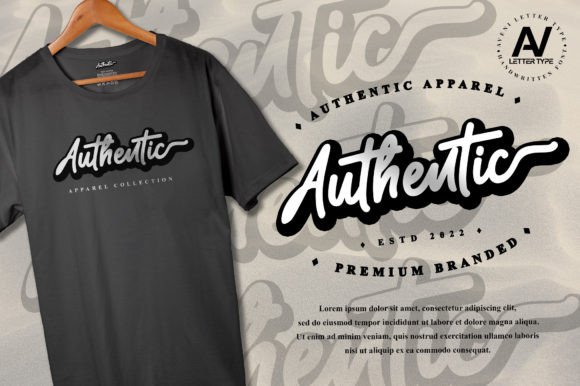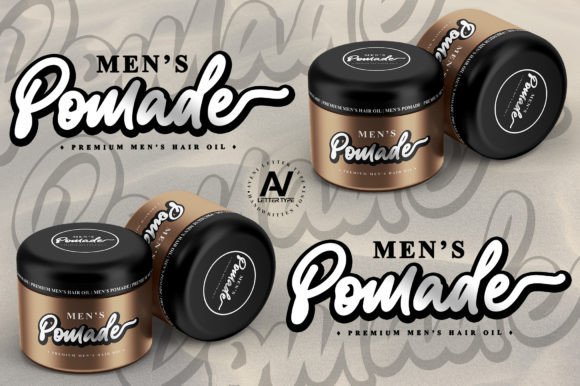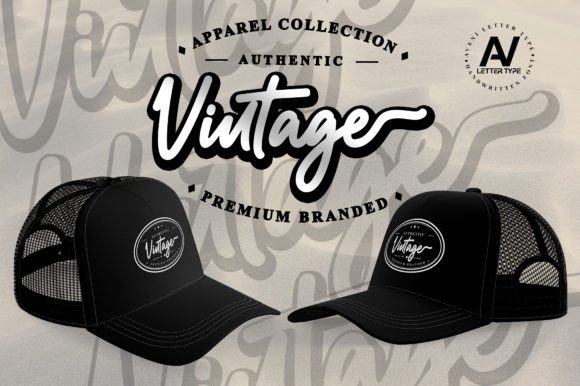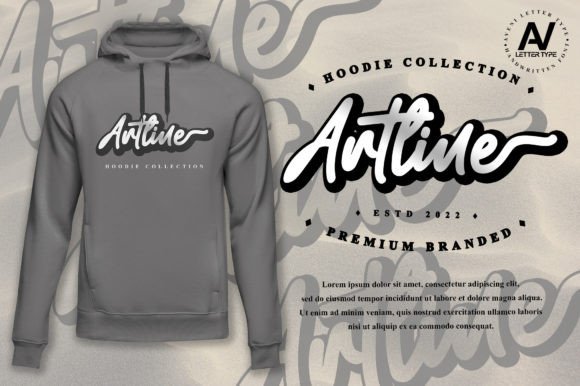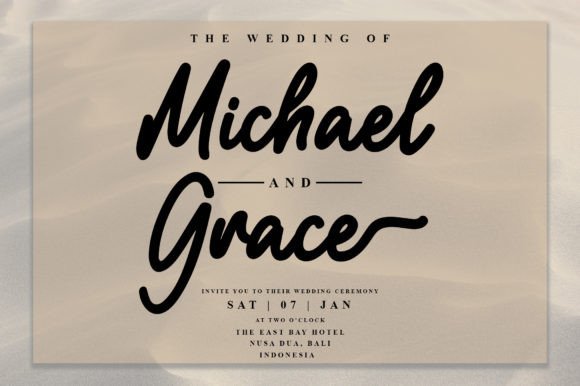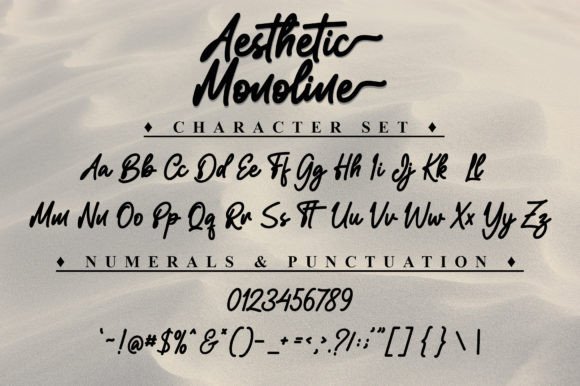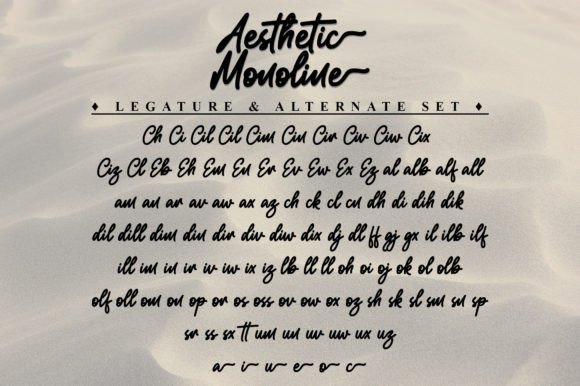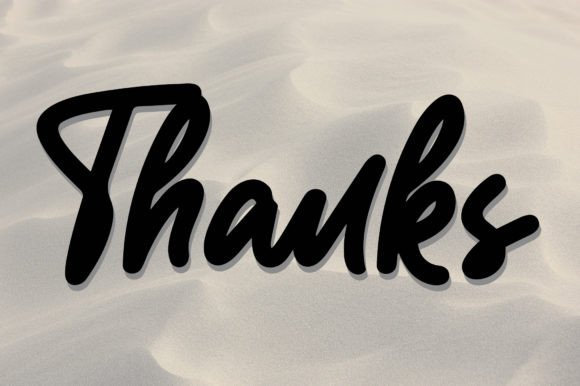
Aesthetic Monoline Font
About Aesthetic Monoline Font
Aesthetic Monoline is a bold and elegant handwritten script font, designed with a clean monoline style that adds sophistication and charm to any design. Its simplicity combined with a graceful touch makes it perfect for projects requiring a personalized and stylish look.
Versatility in Design
This font fits a wide range of creative needs. Whether you are working on wedding invitations, thank you cards, greeting cards, or logos, Aesthetic Monoline provides a polished and professional finish. Its elegant strokes make your designs memorable and refined.
PUA Encoded for Full Creative Access
Aesthetic Monoline is PUA encoded, allowing easy access to all glyphs, ligatures, and alternates. This feature ensures you have all the creative tools necessary to customize your typography and make your projects stand out.
Clear and Readable
Despite its artistic style, Aesthetic Monoline maintains excellent readability. This makes it ideal for both digital and print use, ensuring your message is both beautiful and clear.
Key Features
• Bold and elegant monoline handwritten script
• Perfect for wedding invitations, logos, greeting cards, and more
• PUA encoded for easy access to special glyphs and ligatures
• Stylish, clear, and highly adaptable font
Why Choose Aesthetic Monoline?
The font combines boldness with elegance, making it an excellent choice for designers looking to create sophisticated and personal designs. Its versatility suits both formal and casual projects, giving your work a unique and charming touch.
In summary, Aesthetic Monoline font is a beautifully crafted monoline script that will enhance your designs with a bold and elegant flair. It is a must-have for anyone seeking to add a refined, handwritten style to their creative work.